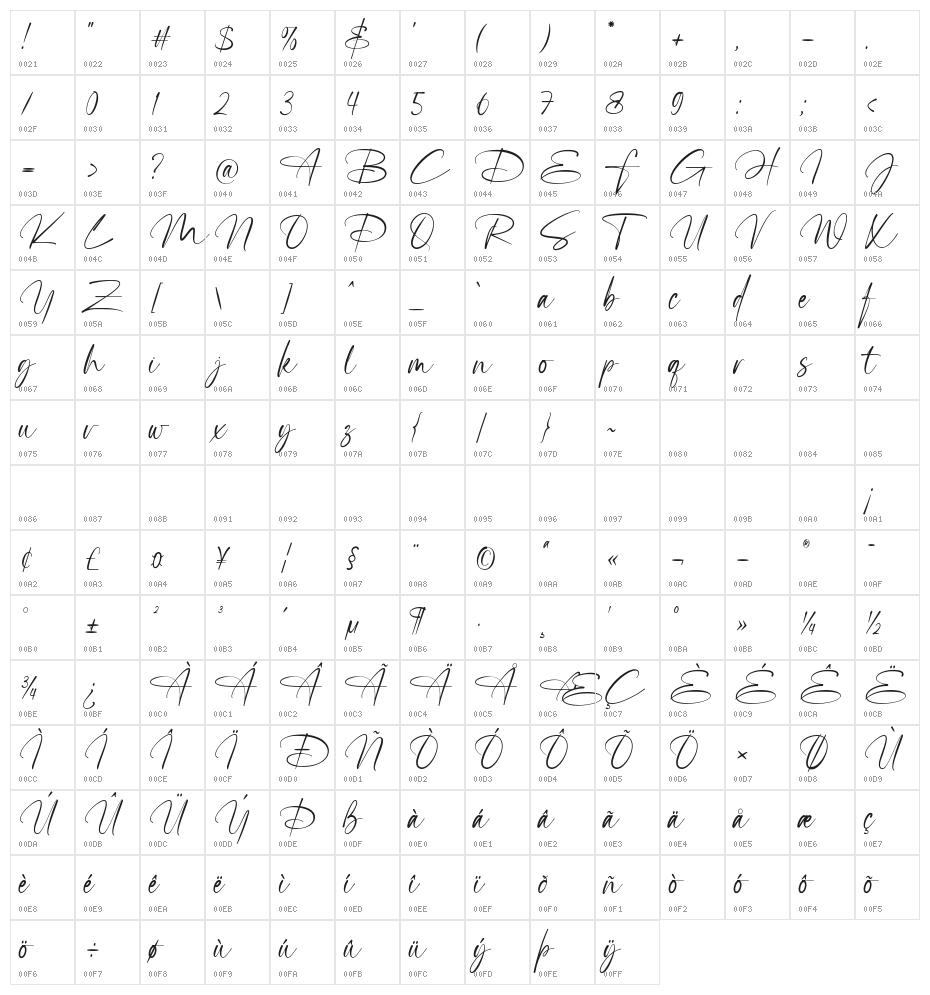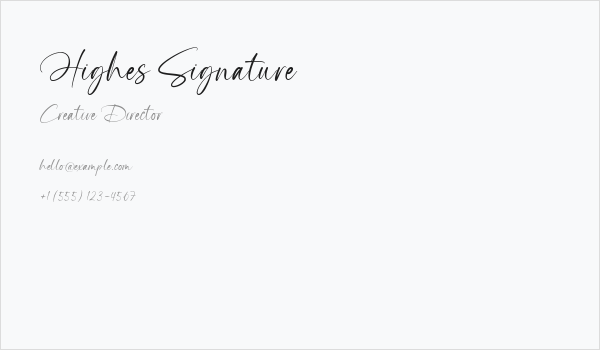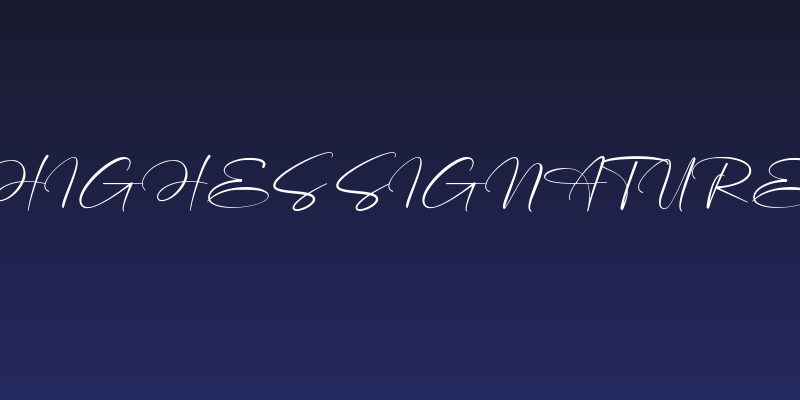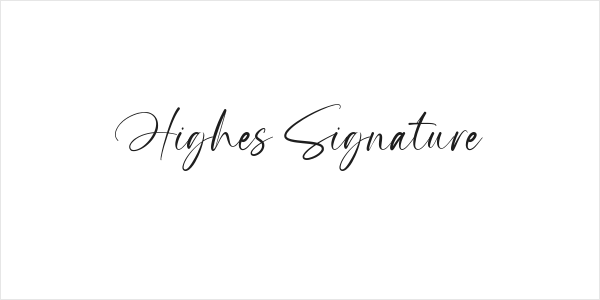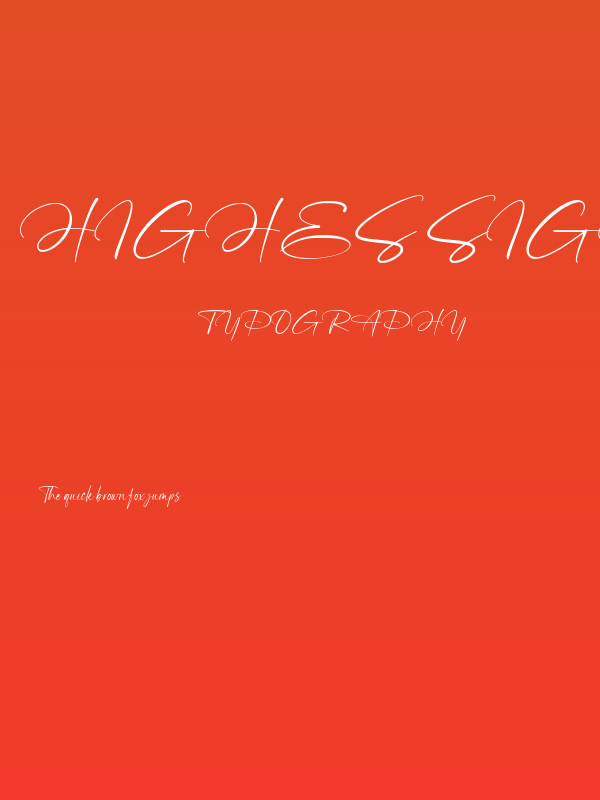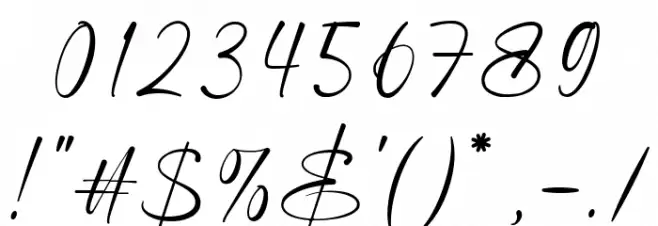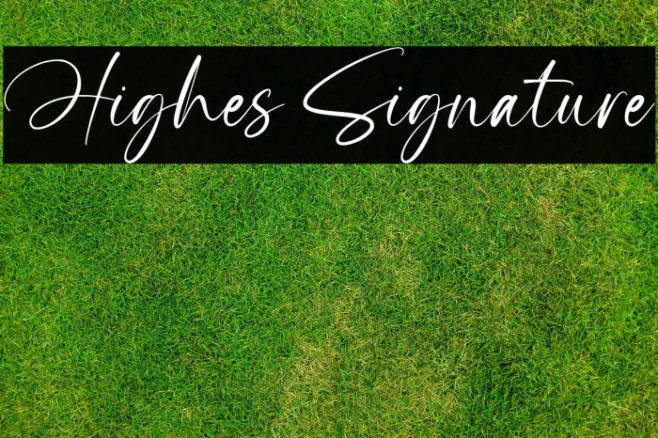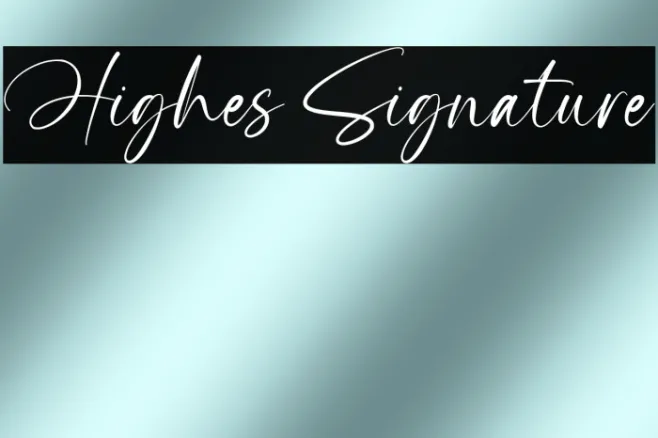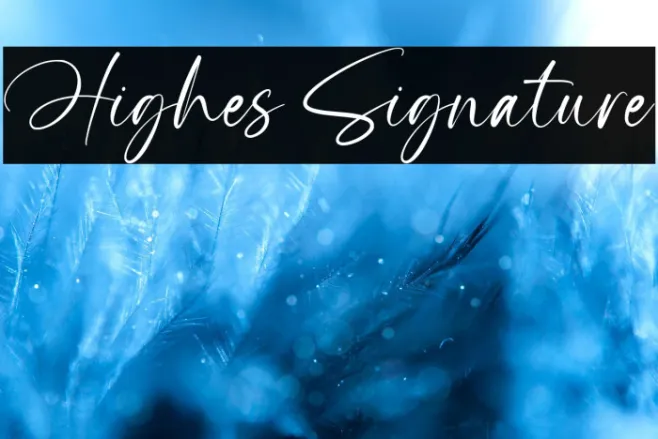
Highes Signature Font
Highes Signature Description
This font exudes a sophisticated and elegant handwritten style, characterized by fluid strokes and a natural flow. The uppercase letters are slightly more angular, giving a modern edge, while the lowercase letters maintain a smooth, cursive appearance. The numerals and special characters complement the alphabet with consistent line weight and style. The overall look is both stylish and approachable, making it suitable for a variety of design projects that require a personal touch.
| Proposed Projects | Ideal for wedding invitations, personal branding, greeting cards, and elegant packaging designs. |